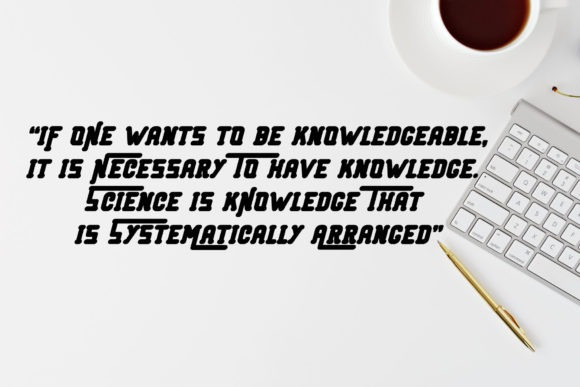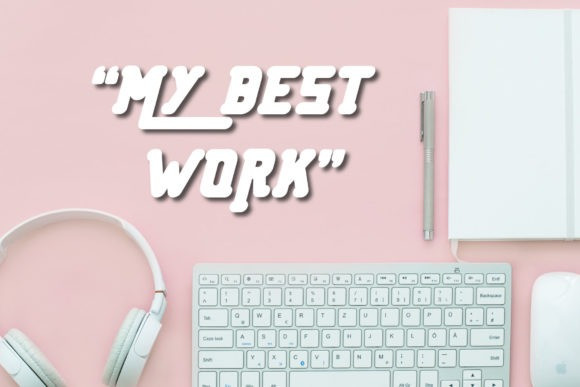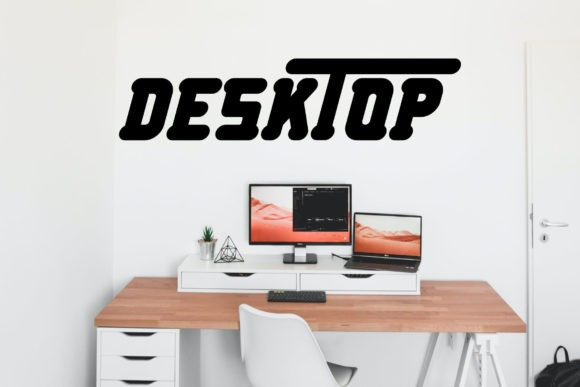
Desktop Display Font
Desktop Display Font, is a cool and techno looking display font. This font is ideal for writing web designs, business cards, or pretty much anything else that requires a unique touch.